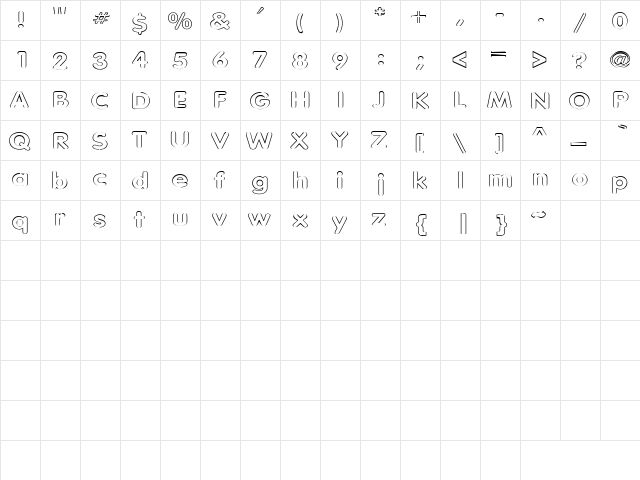
Noodles 4 Regular Font Preview
Noodles 4 Regular
Noodles 4 Regular Font Details
Design Context for Noodles 4 Typeface
Noodles 4 offers clean, dependable letterforms without strong stylistic allegiance, making it a practical choice for designers who need flexibility.